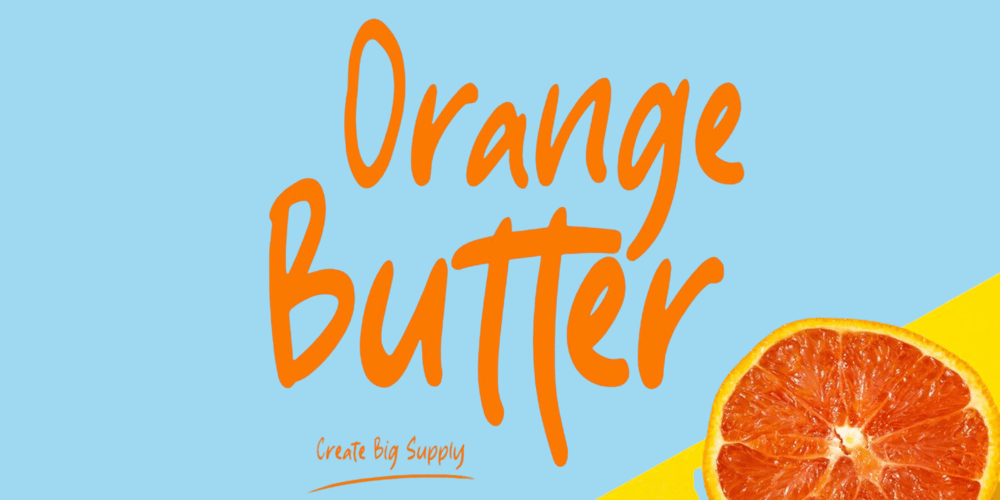
Orange Butter
Orange Butter font
Orange Butter Font Family was designed by Irpan Maulana and published by Create Big Supply. Orange Butter contains 1 styles and family package options. Orange Butter is a one-of-a-kind handwritten font that adds a burst of color, cheerfulness, and playfulness to your designs. With its unique and beautiful letterforms, Orange Butter brings a touch of charm and beauty to every creative composition. Whether you’re designing wedding invitations, branding materials, or social media graphics, this font is sure to captivate your audience.Orange Butter offers a versatile combination of uppercase and lowercase letters, allowing you to create endless combinations and customization. It includes numbers and punctuation marks, providing you with a comprehensive set of tools to create visually stunning designs. With multilingual support, this font ensures effective communication in various languages, enabling you to connect with a global audience.Designed with user-friendliness in mind, Orange Butter comes with PUA Encoding, making it easy to access special characters and glyphs. This feature enhances your design workflow and empowers limitless creativity.Elevate your designs with the elegance and beauty of Orange Butter. Create captivating visuals that leave a lasting impression on your audience, showcasing your unique style and creativity.